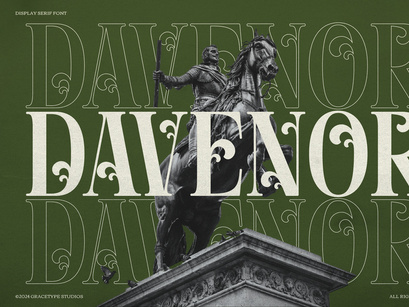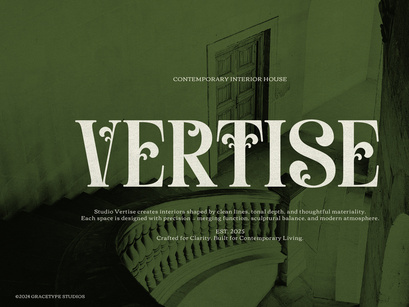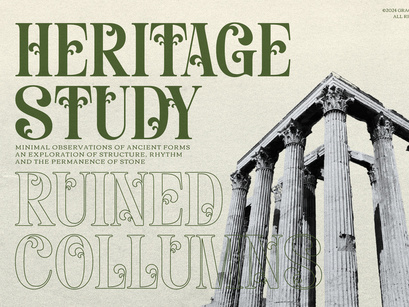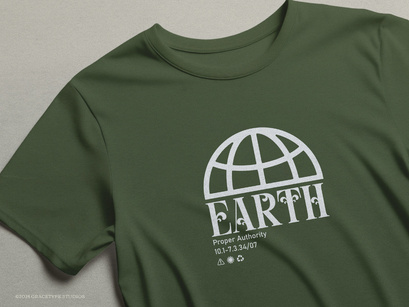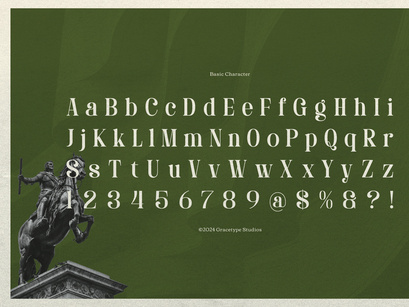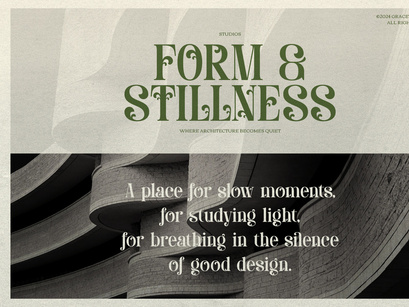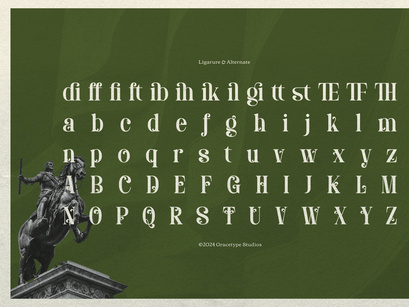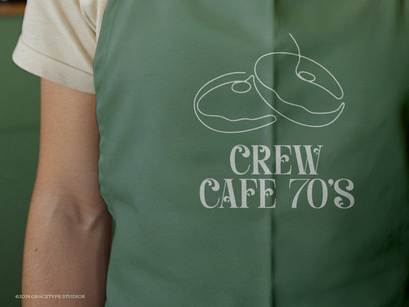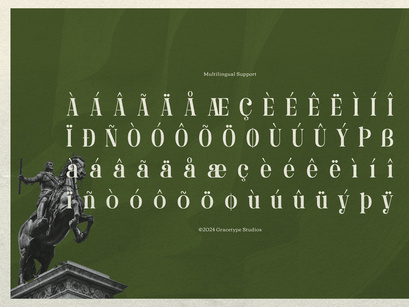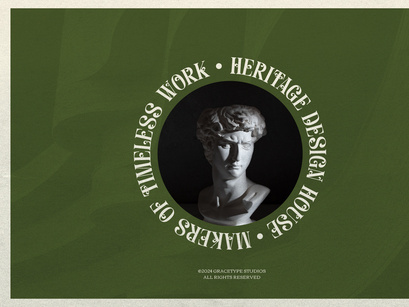
Davenor | Display Serif Font, from Gracetypestudio, suitable for any projects such as: logos, branding projects, homeware designs, product packaging, mugs, quotes, posters, shopping bags, t-shirts, book covers, name card, invitation cards, greeting cards, label, photography, watermark, special events, and all your other lovely projects that need a Serif taste.